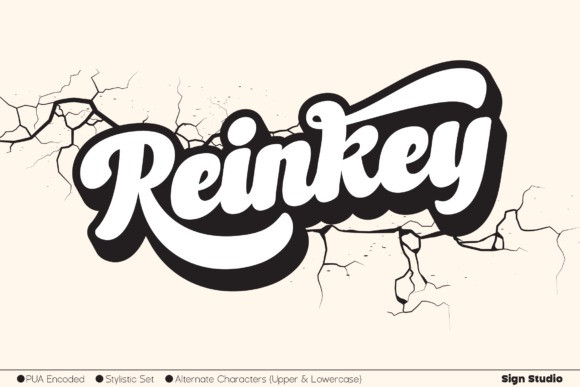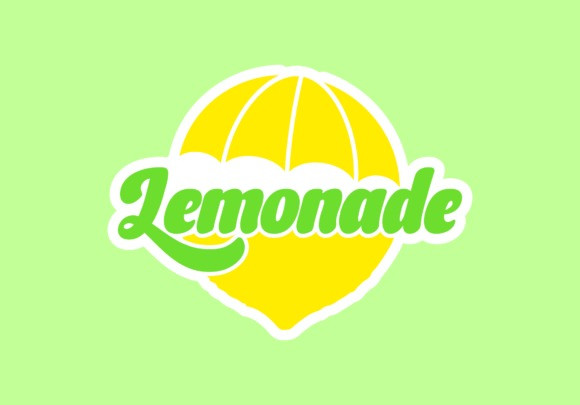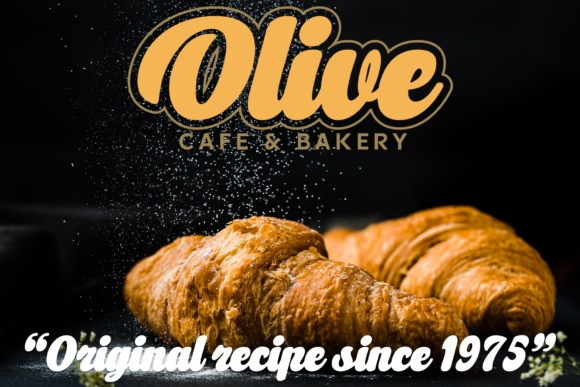
Reinkey Font
Reinkey is a neat and clean brushed display font. It has alternate characters, which will give you convenience when choosing a character for each design project. It is suitable for logotypes, banners, brochures, branding and more. It is PUA encoding which means you can access all of the glyphs and swashes with ease!